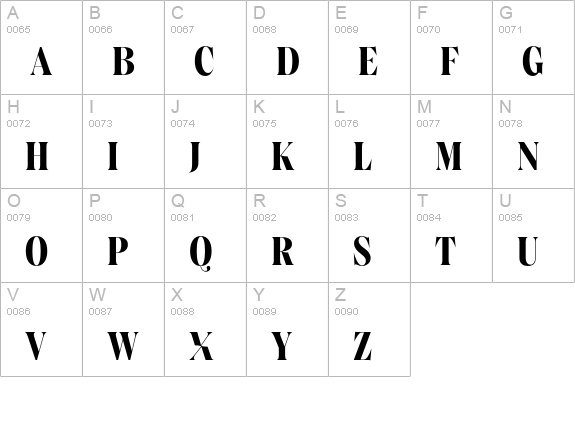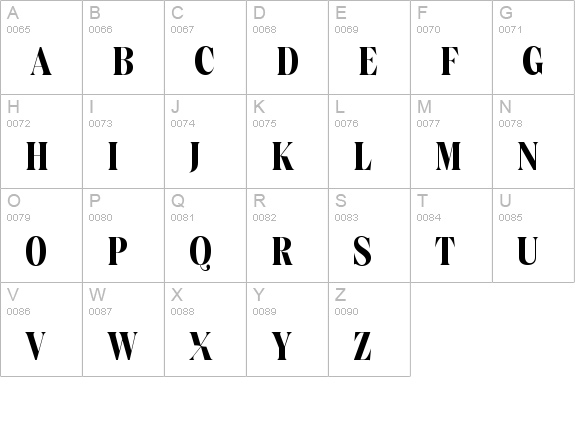
Bolognia Extra Bold is a strong, high-contrast variant in the Bolognia typeface family \xE2\x80\x94 well suited to headlines, attention-grabbing titles, and strong calls-to-action.
Bolognia Extra Bold font is a striking and impactful typeface that exudes strength and confidence. With its bold and commanding presence, this font is perfect for making a bold statement in any design project. The thick, heavy lines of Bolognia Extra Bold demand attention and create a sense of authority. Whether you're designing a poster, logo, or heading, this font will ensure that your message stands out loud and clear.